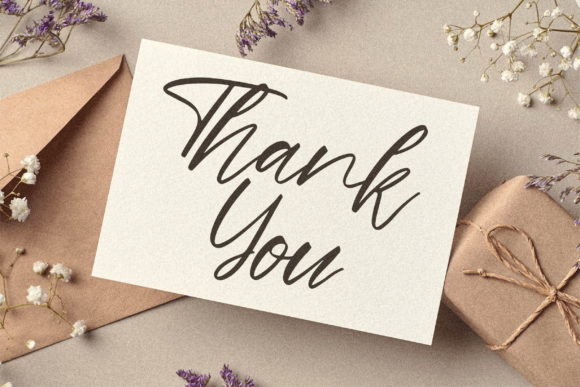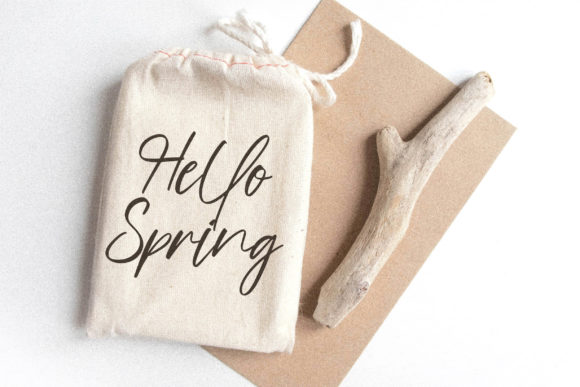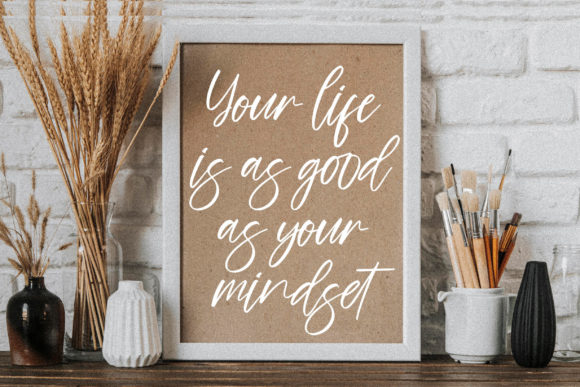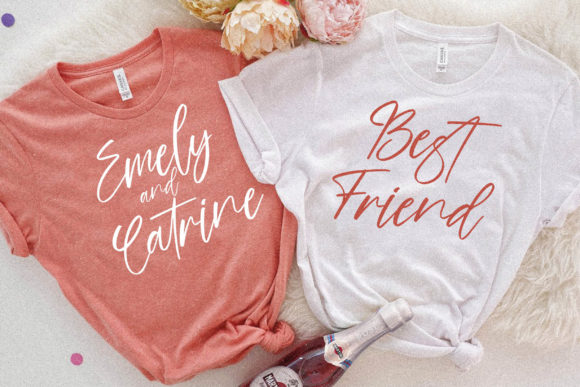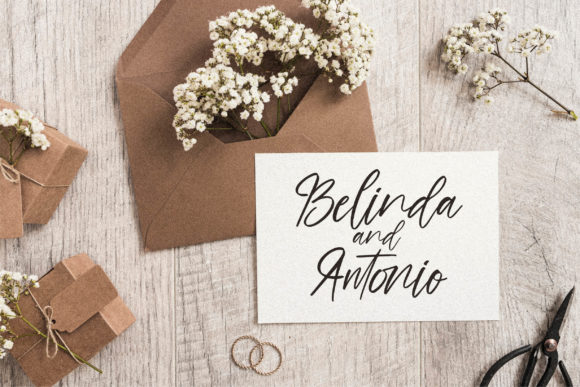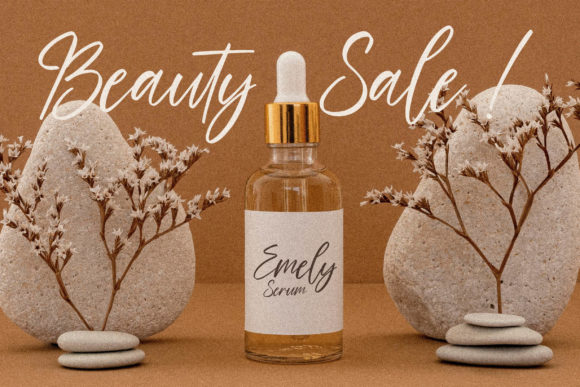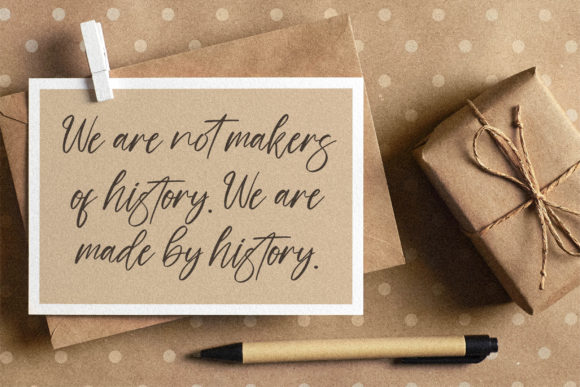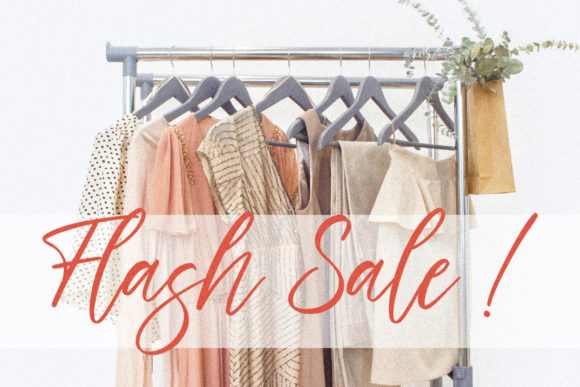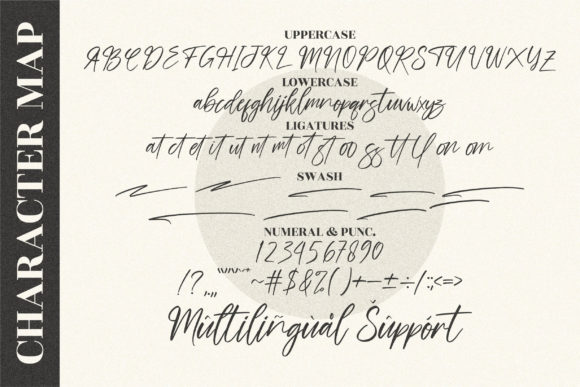
Hand Script Font
About Hand Script Font
Hand Script is a sweet and delicate handwritten font. Dainty and joyful, this font will be ideal for writing wedding invitations, cards or any other design that may need a romantic, personalized touch!